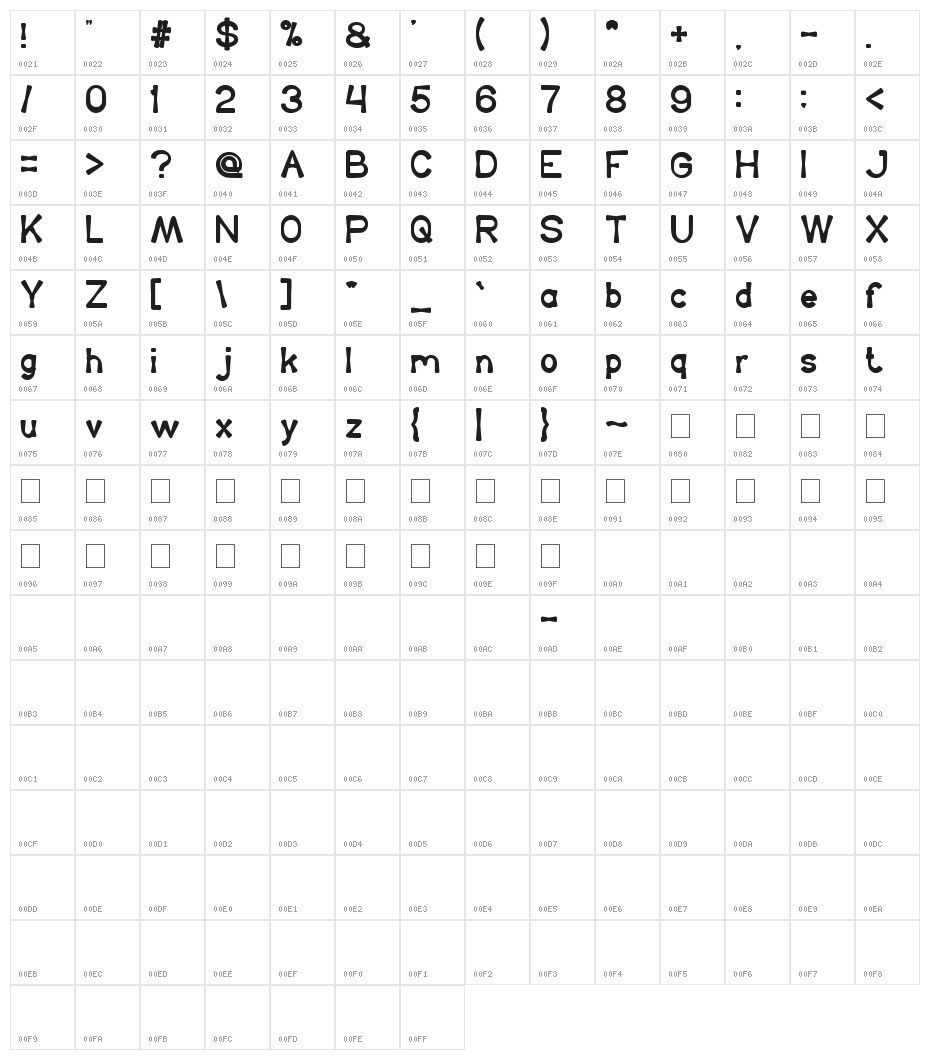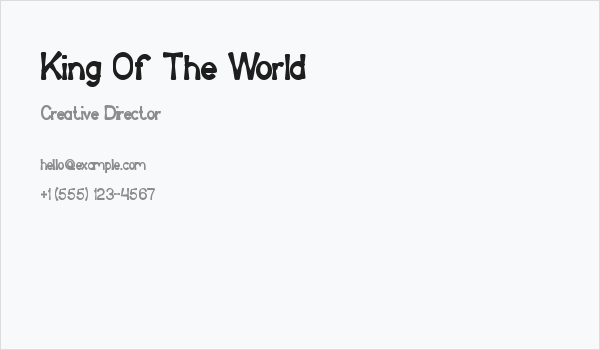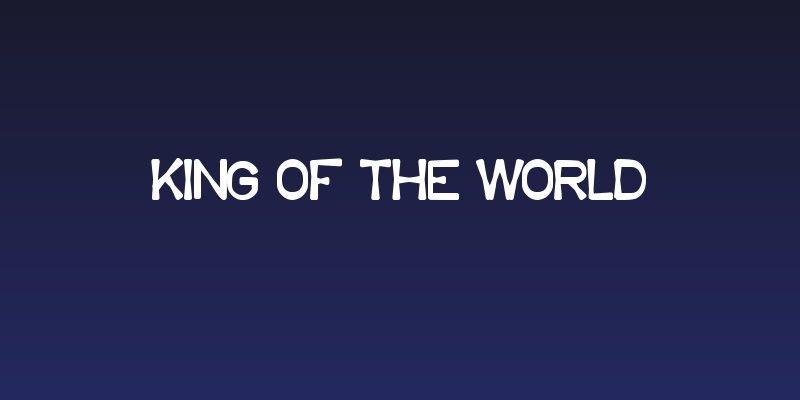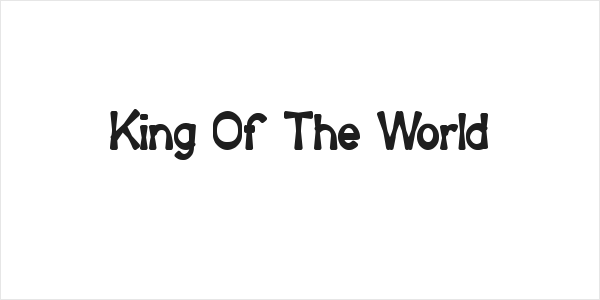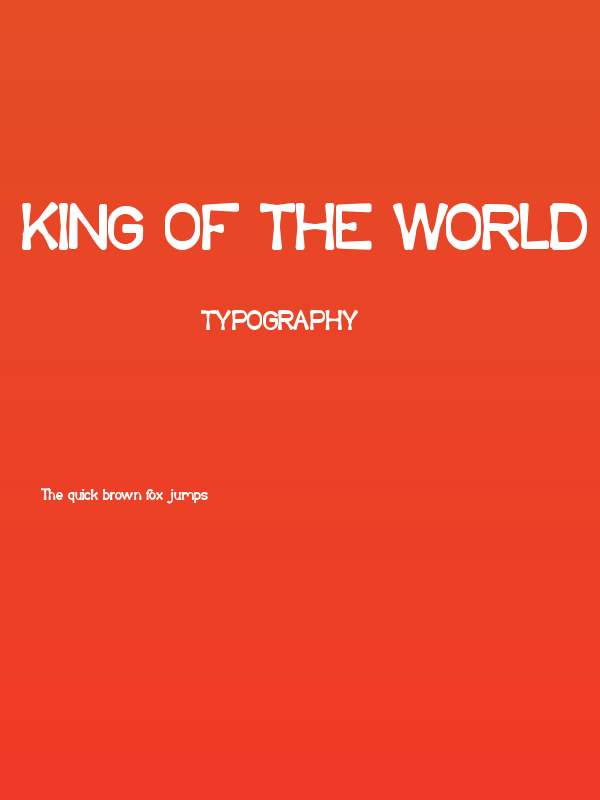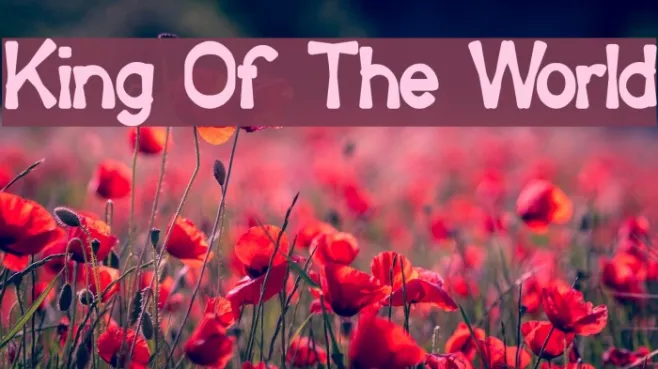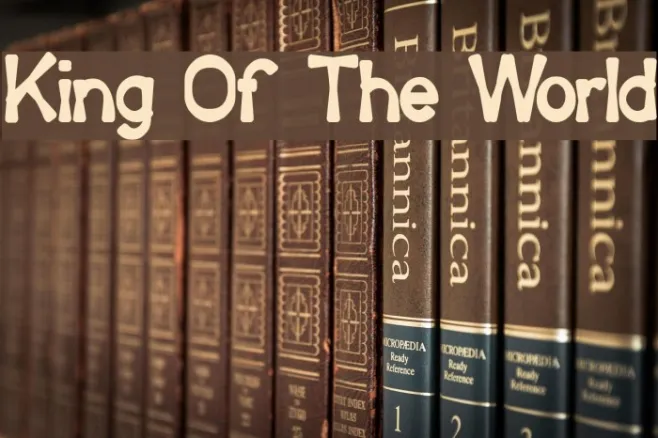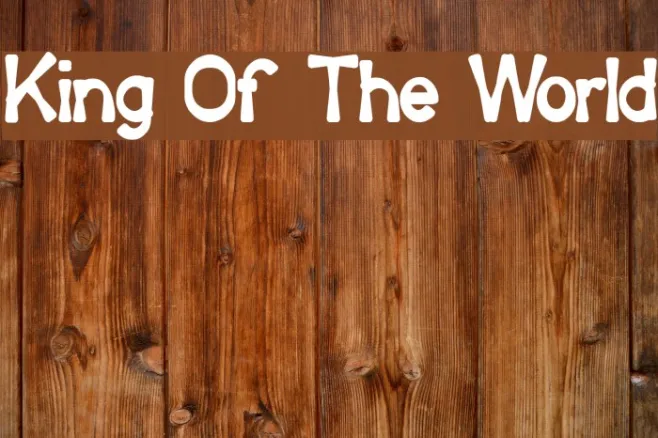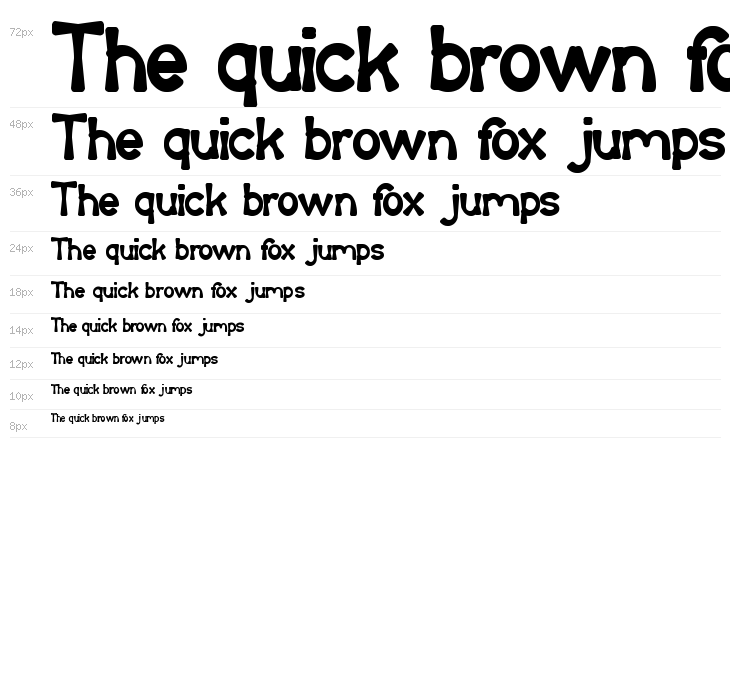
King Of The World Font
King Of The World Description
This font features a playful and bold style with a hand-drawn appearance. The letters are rounded and slightly irregular, giving it a casual and friendly look. The uppercase and lowercase characters maintain a consistent weight, while the numbers and special characters complement the overall design. The strokes are thick with low contrast, emphasizing a uniform and cohesive appearance. This font is ideal for projects that require a fun and approachable aesthetic.
| Proposed Projects | Perfect for children's books, comic strips, playful branding, and casual event invitations. |